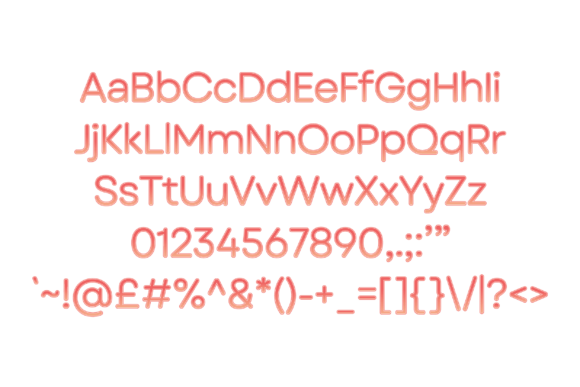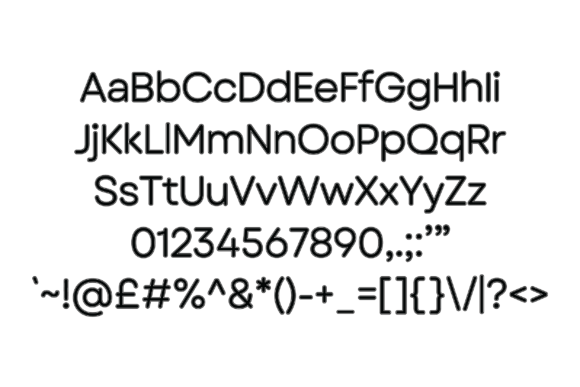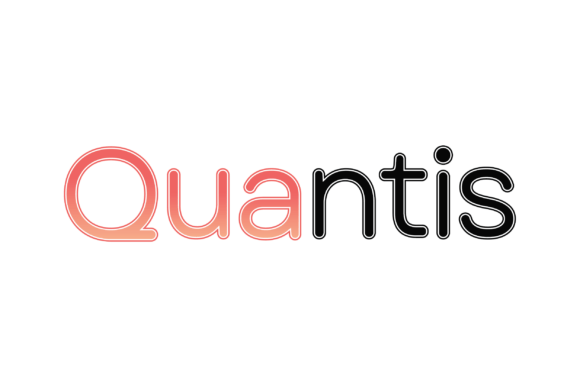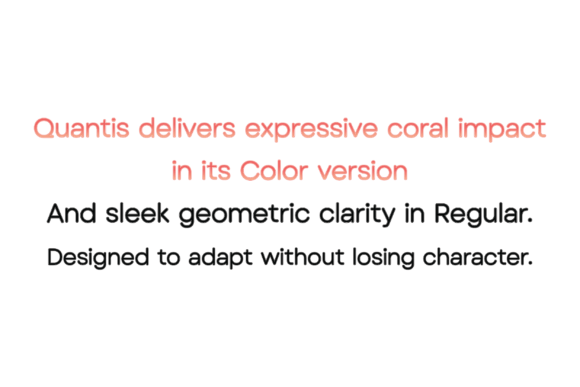
Introduction to Quantis Font
Introducing Quantis, a font that seamlessly marries precision with playful, coral energy.
It weaves together a unique, rounded geometry with delicate layered line nuances, crafting a bold yet welcoming visual appeal Its neon-inspired ambiance radiates warmth, infusing movement and a contemporary edge, an ideal fit for forward-thinking tech companies, digital promotions, and innovative design frameworks.
Key Features of Quantis Font